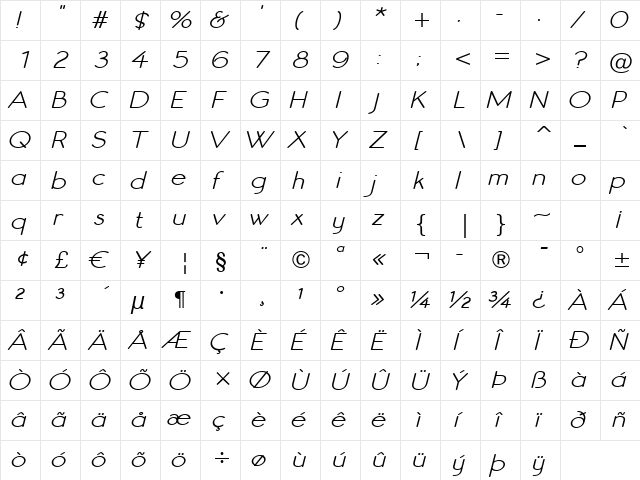
Register Sans BTN Wide Oblique
Design Context for Register Sans BTN Wide Typeface
Register Sans BTN Wide is a composed and adaptable typeface that performs quietly and consistently across a wide range of design contexts. Its italic angle brings a sense of urgency and motion to the letterforms.
Pro Tip: Use Register Sans BTN Wide for emphasis, pull quotes, and subheadings where its slanted energy can add rhythm to the layout.